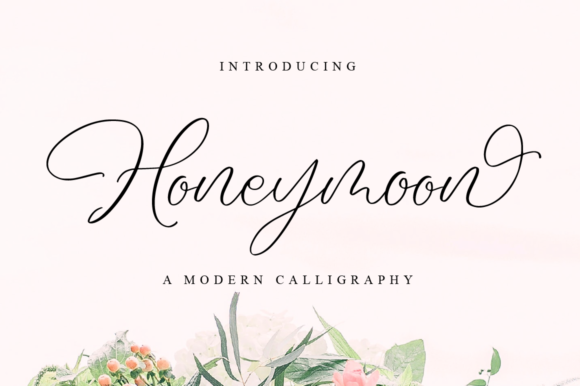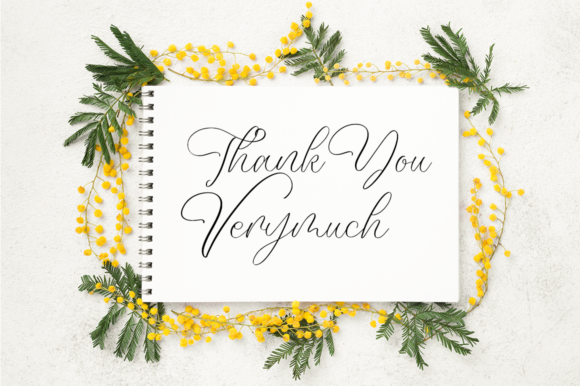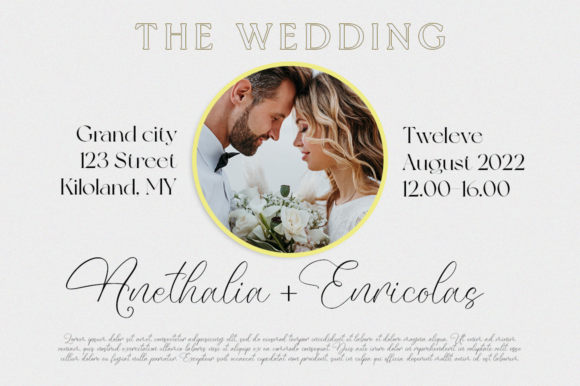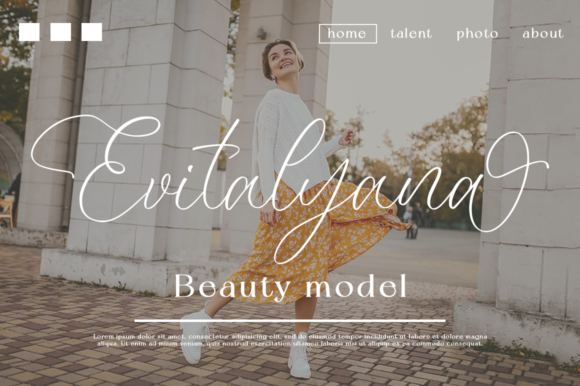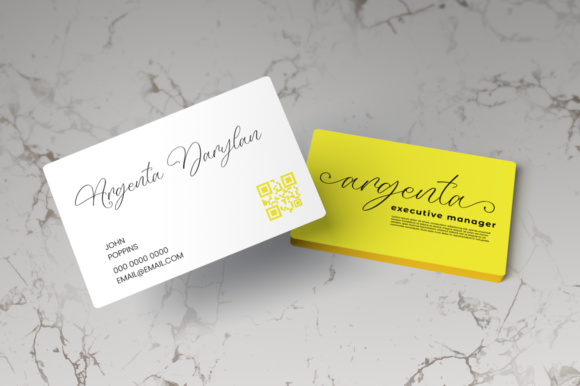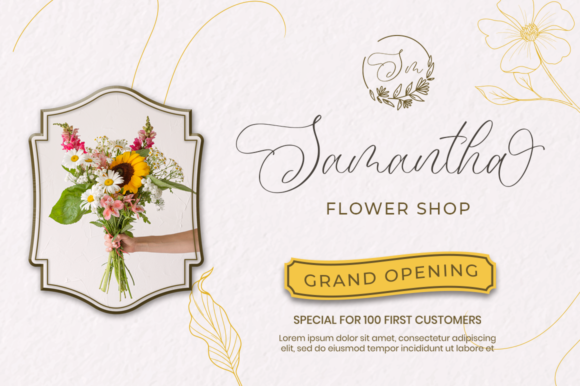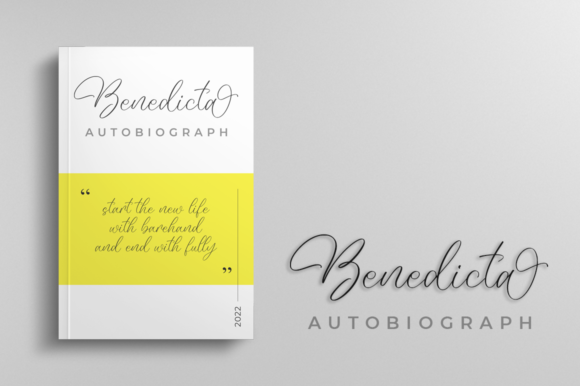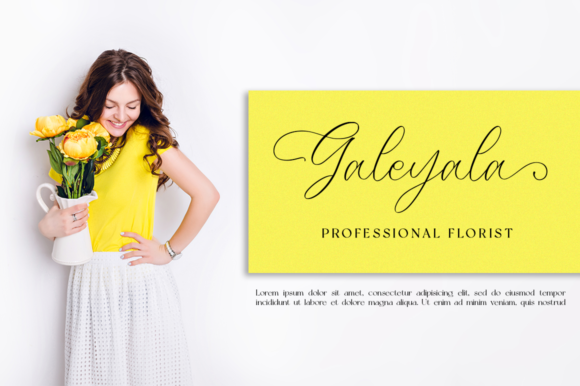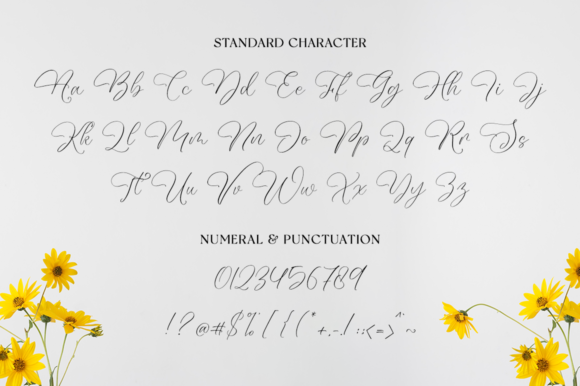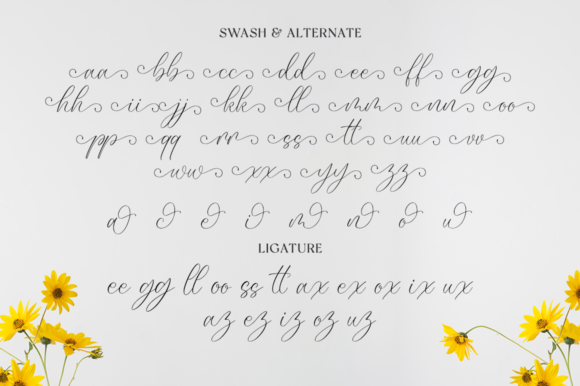
Honeymoon Font
About Honeymoon Font
“Honeymoon” is a script font that exudes beauty and refinement. Its sophisticated style imparts an elegant and modern touch to a wide range of creative projects. Whether it’s logos, branding, invitations, stationery, wedding designs, social media posts, or any other endeavor, “Honeymoon” is designed to elevate the visual aesthetic.
The font’s refined character is evident in its graceful letterforms, which add a touch of elegance to any design. Its modern essence ensures that it resonates with contemporary design sensibilities, making it a versatile choice for a variety of creative applications.
The versatility of “Honeymoon” shines through in its adaptability to different projects. Whether it’s for formal wedding designs that require an air of elegance, or for social media posts that demand a modern touch, the font seamlessly integrates into various contexts, enhancing the overall visual impact.
The inclusion of PUA encoding amplifies the font’s appeal by providing easy access to a diverse range of glyphs and swashes. This feature empowers you to personalize and customize your designs effortlessly, ensuring each project is a true expression of your creative vision.
In summary, “Honeymoon” is a script font that exudes beauty and modern refinement. Its versatility and PUA encoding feature make it an excellent choice for designers seeking to create elegant and impactful designs across a wide range of projects. Whether you’re working on branding, invitations, or social media content, “Honeymoon” adds a touch of sophistication that enhances the visual appeal of your creations.